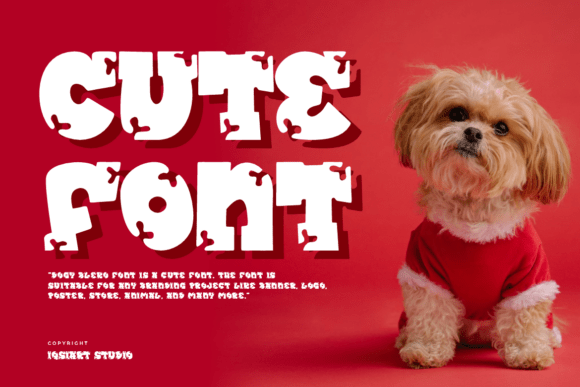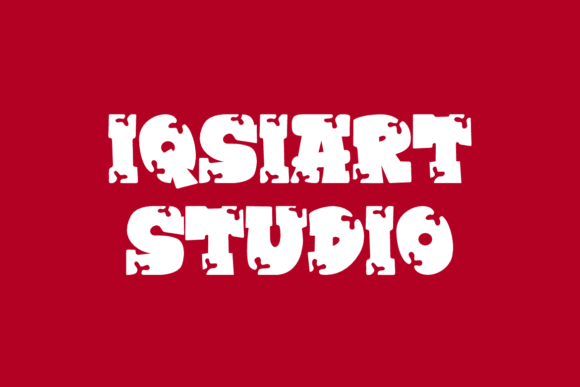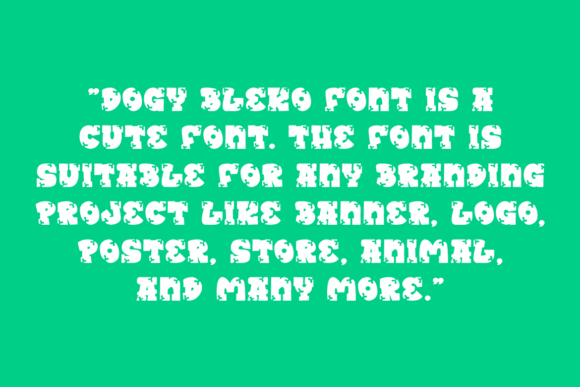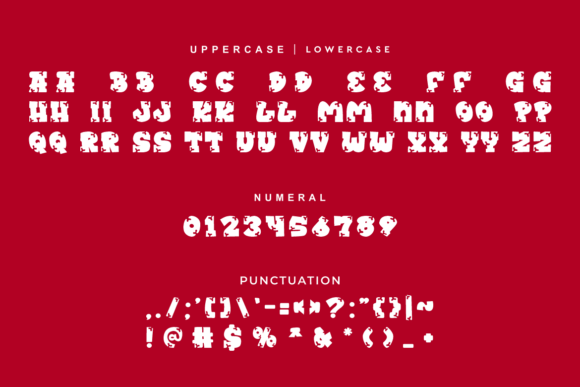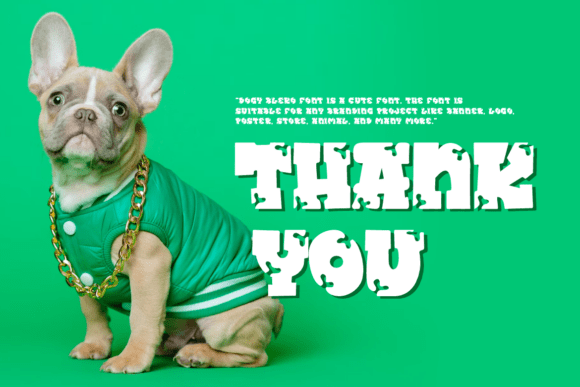
Dogy Bleko Font: The Playful Typeface for Pet-Lovers and Designers
Are you a designer or crafter looking for a font that captures the playful and charming essence of pets and furry friends? Look no further than Dogy Bleko, an irresistibly cute and playful display font that’s perfect for children’s merchandise, pet branding, playful packaging, and fun digital content.
The Inspiration Behind Dogy Bleko
Dogy Bleko is a font that’s inspired by the joy and companionship of pets. Its rounded, whimsical letterforms and puzzle-like design are reminiscent of the curious and playful nature of our furry friends. The font’s creator aimed to capture the warmth and affection that pets bring to our lives, and the result is a typeface that’s both fun and heartwarming.
Design Features of Dogy Bleko
Dogy Bleko’s design features are what make it truly special. The font boasts:
- Rounded, whimsical letterforms that give it a playful and childlike feel
- A puzzle-like design that adds a touch of curiosity and fun
- A warm and inviting aesthetic that’s perfect for projects that require a friendly tone
Use Cases for Dogy Bleko
Dogy Bleko is a versatile font that can be used in a variety of projects, including:
- Children’s merchandise: Create fun and engaging products for kids, such as toys, books, and clothing
- Pet branding: Develop a brand identity for pet-related businesses, such as pet stores, groomers, and veterinarians
- Playful packaging: Add a touch of whimsy to product packaging, making it stand out on store shelves
- Fun digital content: Use Dogy Bleko to create engaging and interactive digital content, such as animations, videos, and social media graphics
Benefits of Using Dogy Bleko
By using Dogy Bleko in your projects, you can:
- Add a dose of happiness and creativity to your designs
- Create a friendly and approachable tone that’s perfect for family-friendly content
- Stand out from the crowd with a unique and playful font that’s sure to capture attention
Tips for Using Dogy Bleko Effectively
To get the most out of Dogy Bleko, follow these tips:
- Use it in large sizes to maximize its impact, such as in headings or titles
- Pair it with other fonts to create a unique and visually appealing typography combination
Dogy Bleko is a charming and playful font that’s perfect for designers and crafters who want to add a touch of fun and whimsy to their projects. With its rounded, whimsical letterforms and puzzle-like design, this font is sure to capture the hearts of pet-lovers and families alike. Bring a dose of happiness and creativity to your designs with Dogy Bleko, and make your projects feel like a warm tail wag.